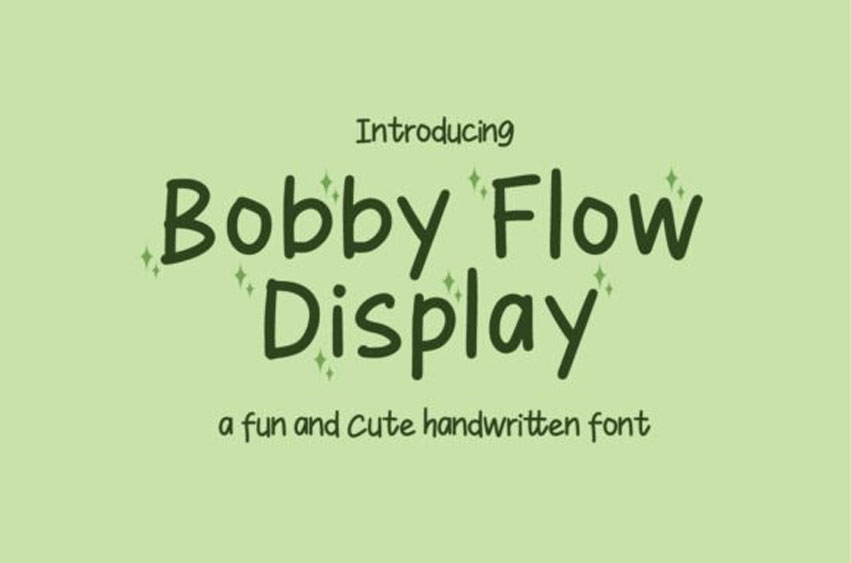
Bobby Flow Display Font
Bobby Flow Display Font is a display typeface awesome character regular.
Wonder Sunday font it’s perfect for namecard, poster, logo, magazine, cover, banner, tshirt and headers, or even large-scale artwork.